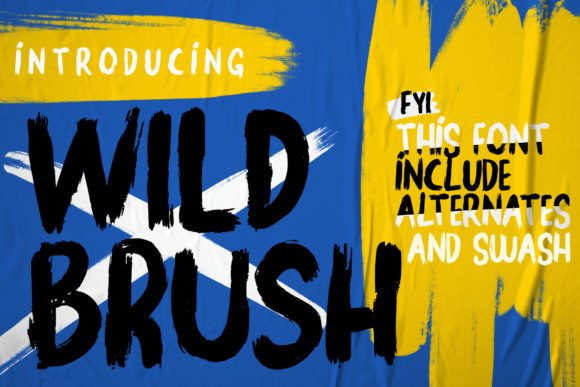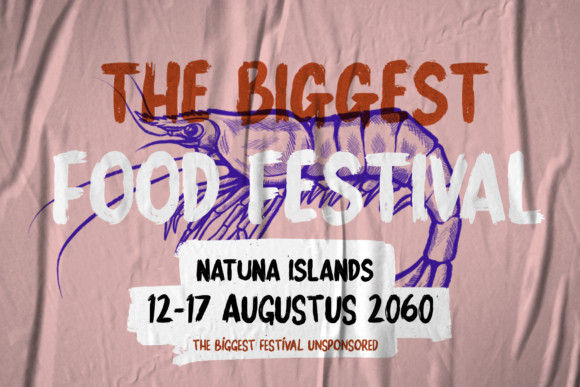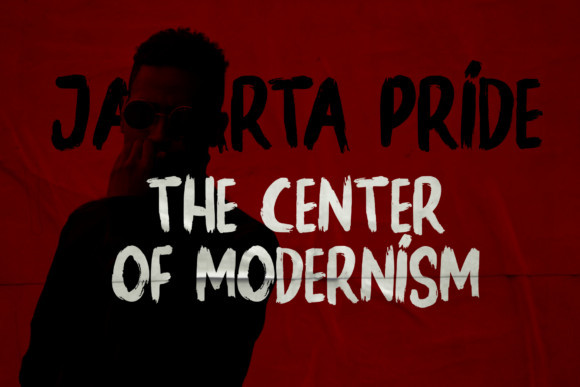
Wild Font
Wild Brush looks bold, yet sophisticated and features chunky and extended characters that will look particularly adept when used in logos, branding, packaging design, and much more. This masterfully designed script is a true must-have.